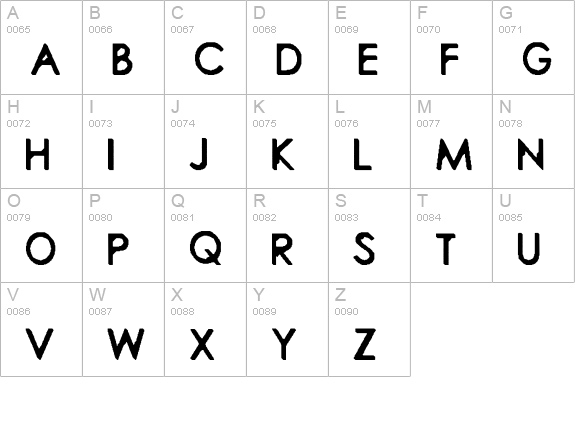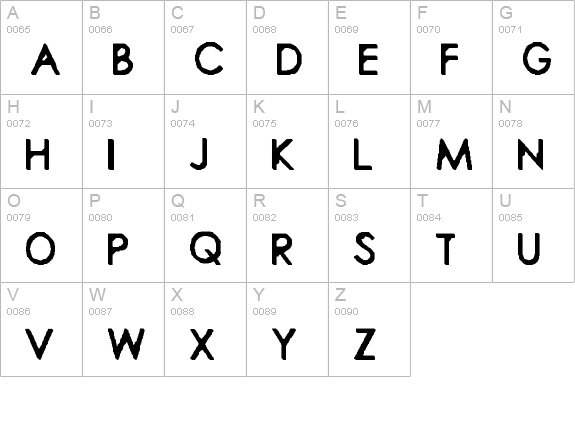
Introducing After Hours font, a stylish and modern typeface that exudes sophistication and elegance. Perfect for adding a touch of class to your designs, this font features sleek lines and a contemporary look that will make your projects stand out. What makes After Hours font even more appealing is that it is available for free download at FontsMarket.com. Yes, you read that right - you can get your hands on this stunning font without spending a dime. Whether you're working on a branding project, a website design, or any other creative endeavor, After Hours font is sure to elevate your work to the next level. Don't miss out on the opportunity to enhance your designs with this beautiful font. Download After Hours font today and let your creativity shine!